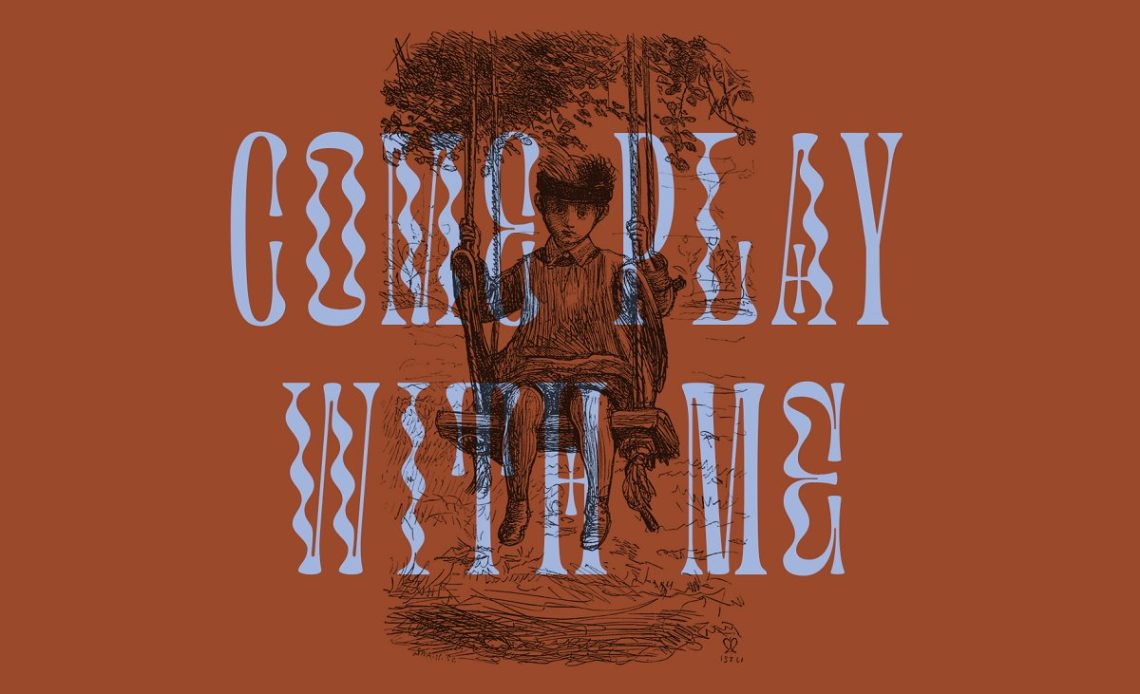
Introducing Glassure Typeface version 1.0, the ultimate choice for game design enthusiasts. Created by the talented Yusril Muhtadi, this experimental typeface takes inspiration from the mesmerizing pull and curl of glass sculptures, captivating marble patterns, and a delightful blend of art nouveau and vintage styles.
With Glassure, you have the power to create the perfect look by combining uppercases, lowercases, and other features. But that's not all! This typeface boasts a unique feature that allows you to effortlessly craft two-letter blocks simply by selecting an even number of letters and activating the 'titling alternates' in your software. It's like magic at your fingertips!
But wait, there's more! Glassure offers an extensive range of features to enhance your design experience. From the standard Basic Latin Uppercase and Lowercase to numerals and punctuations, this font has got you covered. Plus, its multilingual characters ensure that no matter the language, your message will shine through.
Say goodbye to boring designs and hello to the artistry of Glassure. Discover the beauty of discretionary ligatures and stylistic sets that add a touch of elegance to your creations. Let your imagination run wild as you explore the endless possibilities this typeface has to offer.